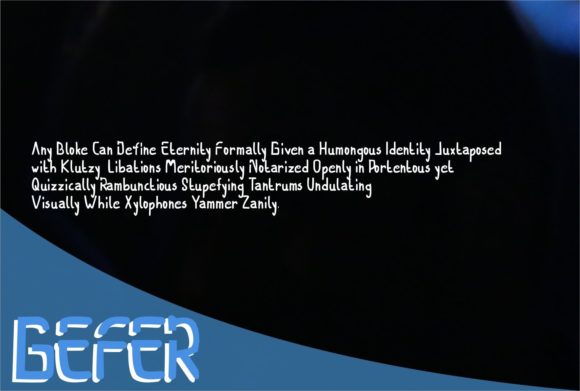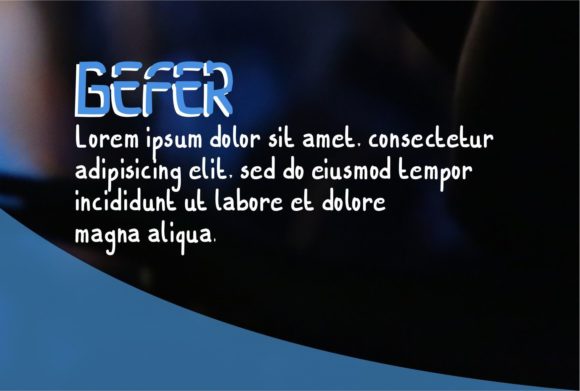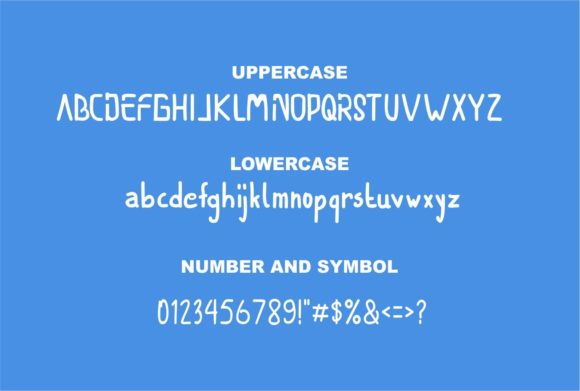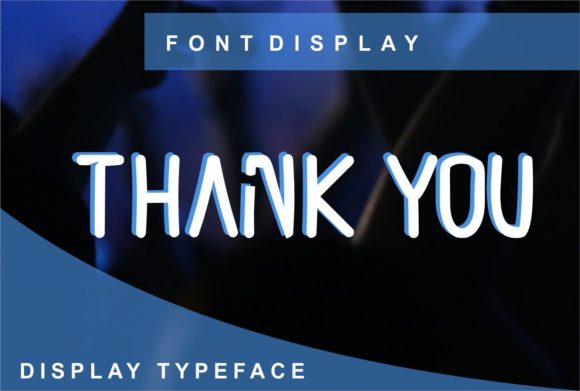
Introducing Gefer Font: The Ultimate Display Font for Designers and Crafters
Are you tired of using the same old fonts for your designs and crafts? Look no further than Gefer Font, a clean and adaptable display font that’s perfect for any project. In this article, we’ll explore the features and benefits of Gefer Font, and show you how to make the most of its endless possibilities.
What is Gefer Font?
Gefer Font is a modern display font designed to make your designs stand out. Its clean lines and adaptable style make it perfect for use on posters, flyers, prints, and any other project where you want to make a statement. Whether you’re a designer, crafter, or DIY enthusiast, Gefer Font is a versatile and stylish choice that’s sure to impress.
Key Features of Gefer Font
- Clean and Adaptable: Gefer Font features clean lines and a adaptable style that makes it perfect for use on a wide range of projects.
- High-Quality Design: Gefer Font is designed with high-quality craftsmanship in mind, ensuring that your designs look professional and polished.
- Endless Possibilities: With Gefer Font, the possibilities are endless. Use it for posters, flyers, prints, and any other project where you want to add a touch of style and sophistication.
- Easy to Read: Despite its stylish design, Gefer Font is easy to read, making it perfect for use on projects where you need to communicate a message clearly.
Benefits of Using Gefer Font
So why choose Gefer Font for your designs and crafts? Here are just a few benefits of using this versatile display font:
- Adds Style and Sophistication: Gefer Font adds a touch of style and sophistication to any project, making it perfect for designers and crafters who want to create professional-looking designs.
- Versatile: Gefer Font is versatile and adaptable, making it perfect for use on a wide range of projects, from posters and flyers to prints and more.
- Easy to Use: Gefer Font is easy to use, even for designers and crafters who are new to working with fonts.
- High-Quality: Gefer Font is designed with high-quality craftsmanship in mind, ensuring that your designs look professional and polished.
How to Use Gefer Font
Using Gefer Font is easy. Here are a few tips to get you started:
- Choose the Right Size: Choose a size that’s right for your project. Gefer Font looks great in large sizes, but it can also be used in smaller sizes for added impact.
- Experiment with Colors: Gefer Font looks great in a wide range of colors. Experiment with different colors to find the one that’s right for your project.
- Pair it with Other Fonts: Gefer Font pairs well with other fonts. Try pairing it with a sans-serif font for added contrast.
- Use it for Headings: Gefer Font is perfect for use on headings and titles. Use it to add a touch of style and sophistication to your designs.
| Font Name | Gefer Font |
| Author | Letteria_studio |
In conclusion, Gefer Font is a clean and adaptable display font that’s perfect for designers and crafters who want to add a touch of style and sophistication to their designs. With its high-quality design, versatility, and ease of use, Gefer Font is a great choice for any project. Whether you’re working on a poster, flyer, print, or any other project, Gefer Font is sure to impress.
Get Ready to Explore Endless Possibilities with Gefer Font